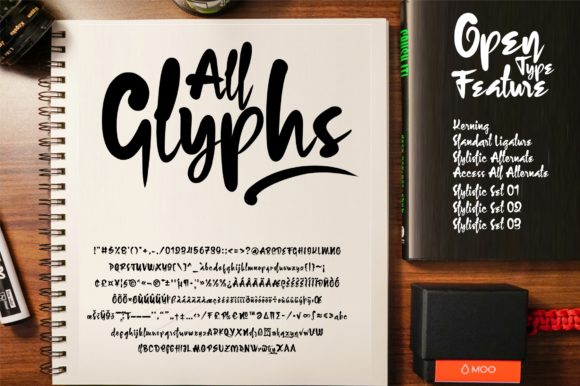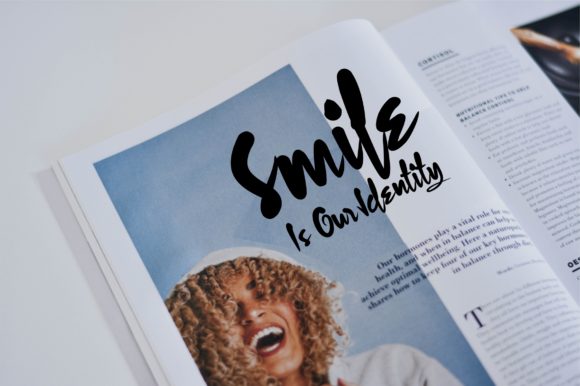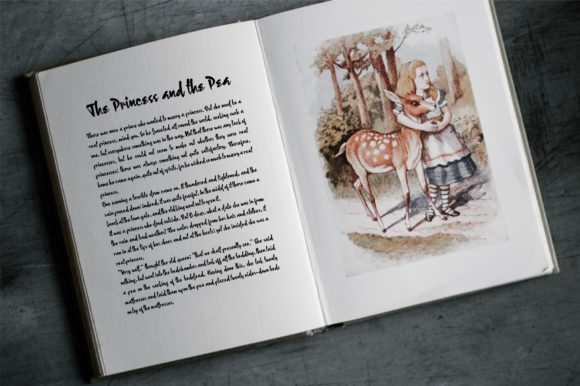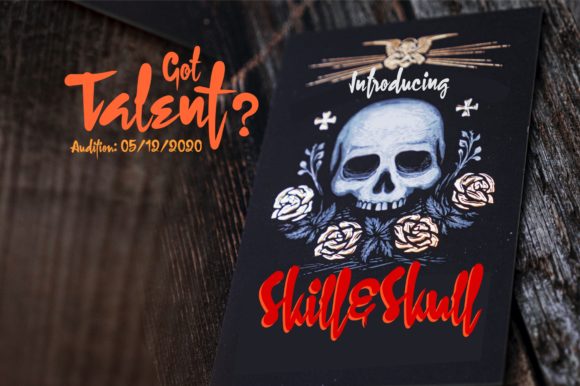
Estrude Font
About Estrude Font
Estrude is a modern, bold and thick lettered handwritten font. It is suitable for any branding, product packaging, invitation, quote, t-shirt, label, poster, logo that you wish to develop.